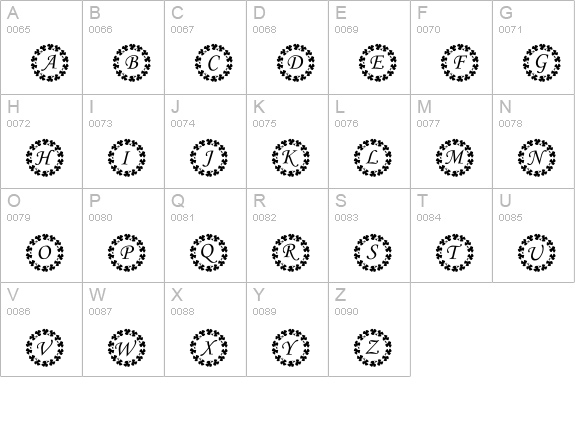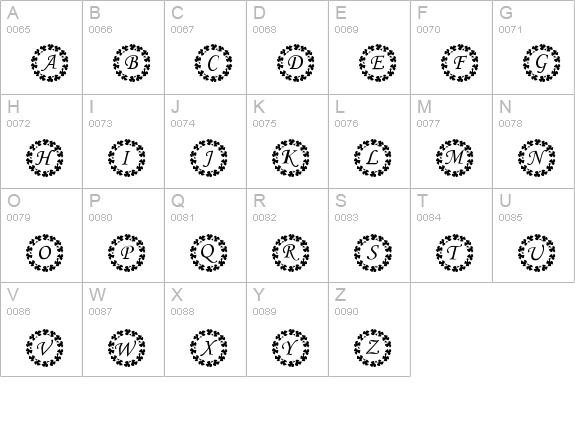
Introducing the enchanting KR Ring O' Shams font, a captivating typeface that will transport you to a world of magic and whimsy. Crafted with meticulous attention to detail, this font exudes elegance and mystery, making it the perfect choice for any design project that seeks to captivate and inspire. With its intricately designed letterforms, KR Ring O' Shams effortlessly blends traditional calligraphy with a modern twist. Each stroke is carefully crafted to create a harmonious balance between fluidity and structure, resulting in a font that is both visually stunning and highly legible. The versatility of KR Ring O' Shams knows no bounds. Whether you are creating invitations for a fairytale wedding, designing a logo for a mystical brand, or adding a touch of magic to your personal blog, this font is sure to make a lasting impression. And the best part? KR Ring O' Shams is available for free! That's right, you can easily download this extraordinary font at FontsMarket.com, the premier destination for high-quality fonts. Embrace the power of creativity and let KR Ring O' Shams elevate your designs to new heights. So why wait? Let your imagination run wild with KR Ring O' Shams, the font that will transport you to a world of enchantment and wonder. Download it today and unleash the magic within your designs.